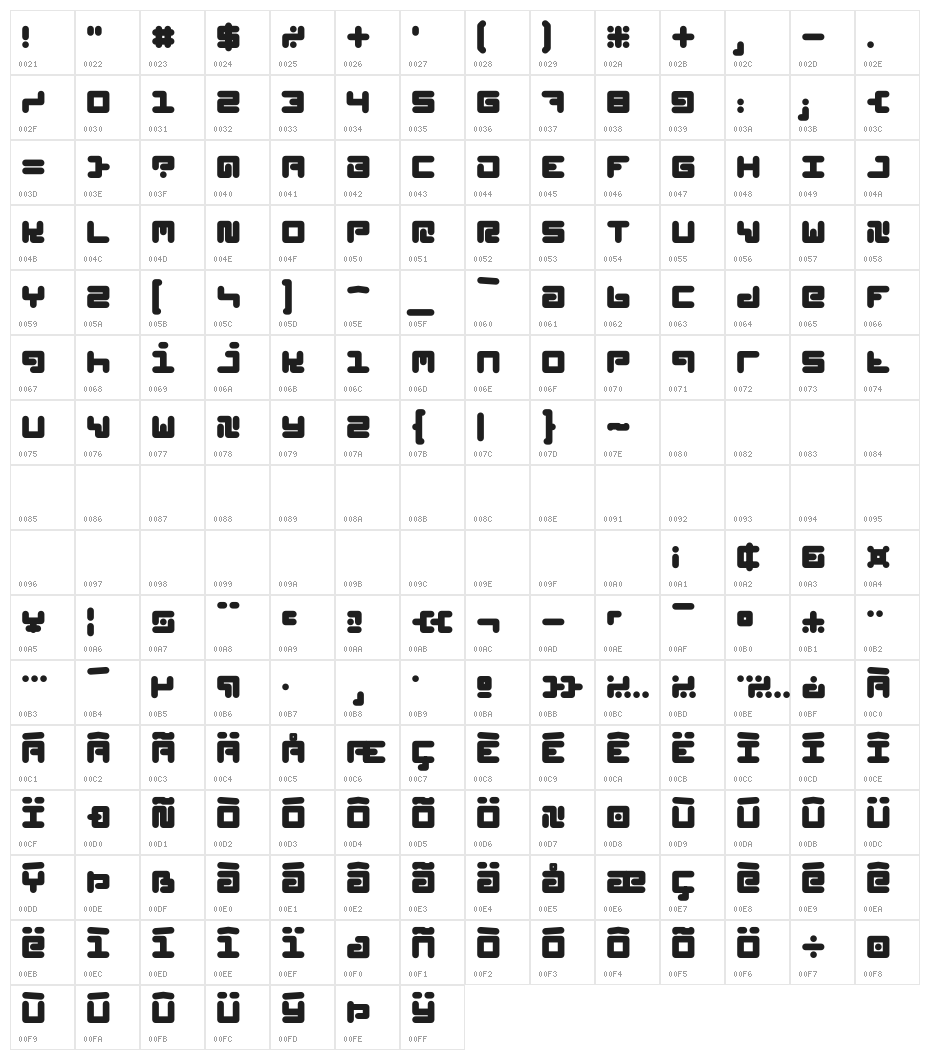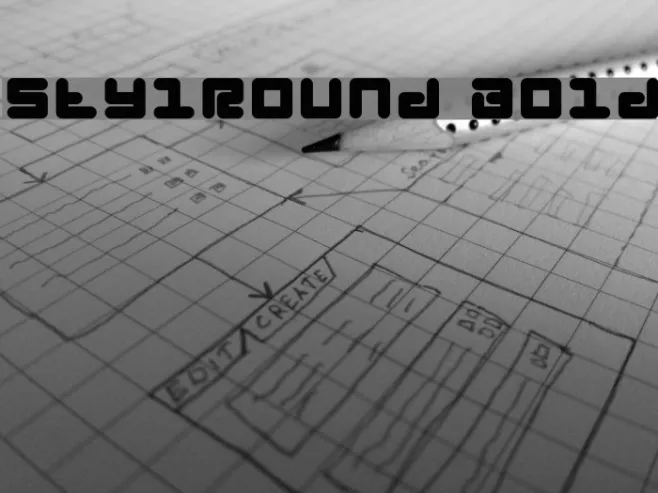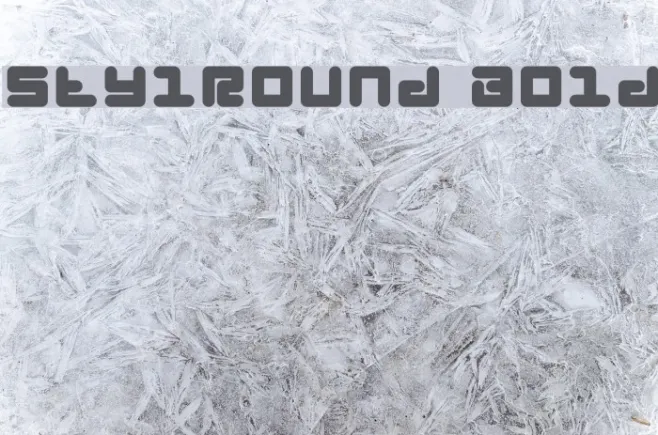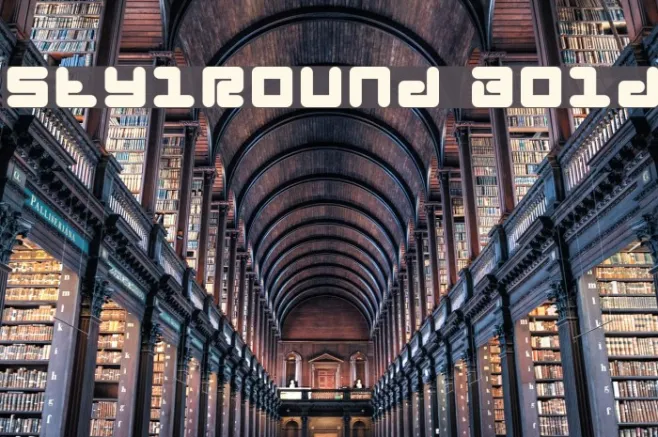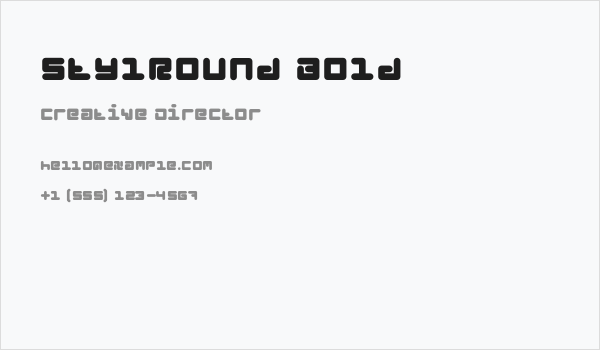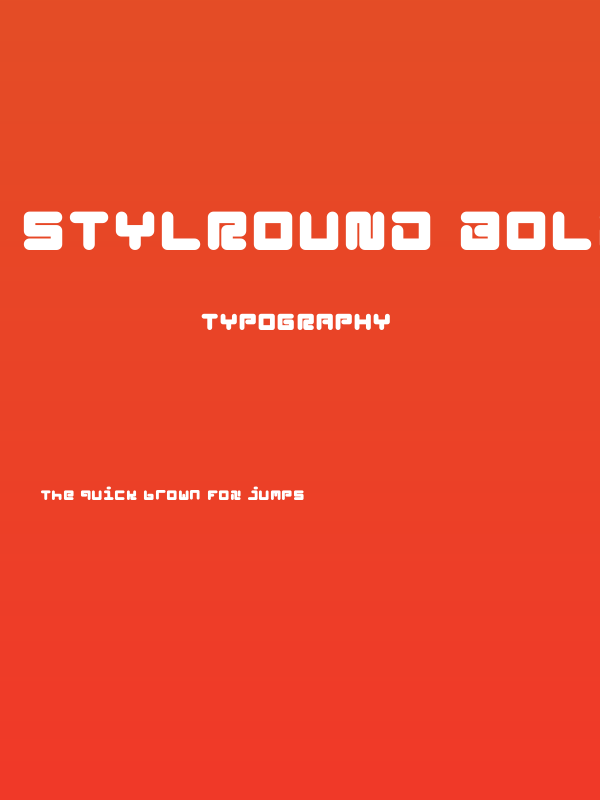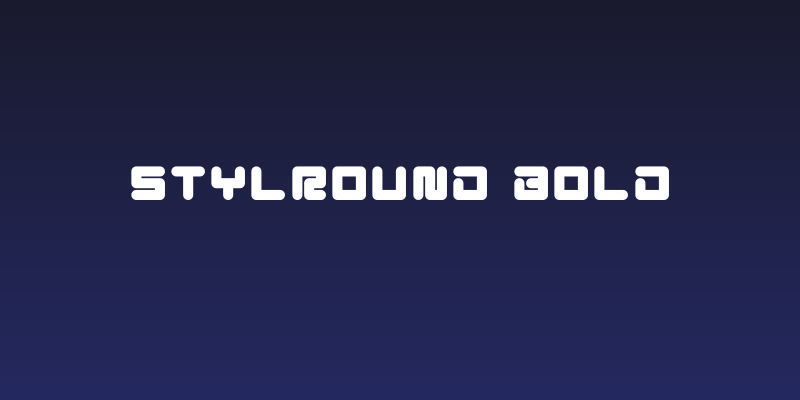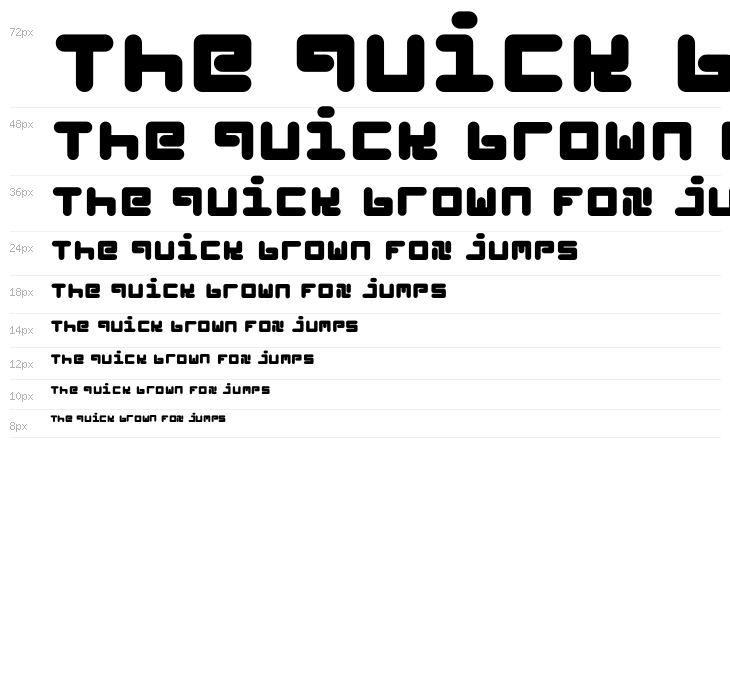
StylRound Bold Font
StylRound Bold Description
This font features a bold, rounded style with a modern and playful aesthetic. The characters are uniformly thick, creating a strong visual impact. The rounded edges give it a friendly and approachable feel, making it suitable for various creative applications. The uppercase and lowercase letters maintain a consistent design, while the numbers and special characters complement the overall style. Its boldness ensures readability, even at smaller sizes, while the rounded forms add a unique touch to any design.